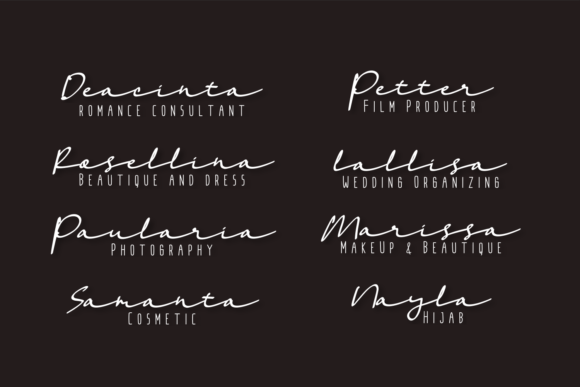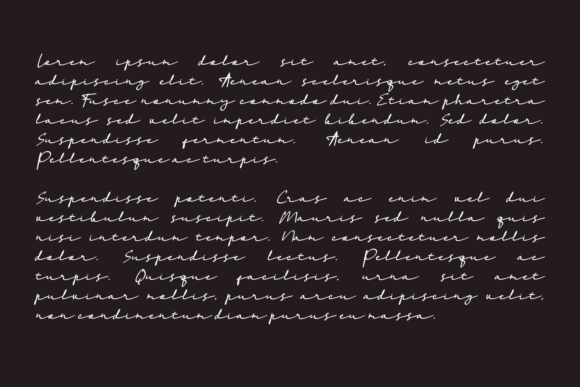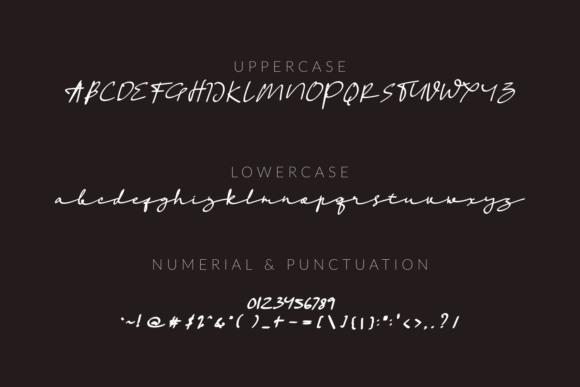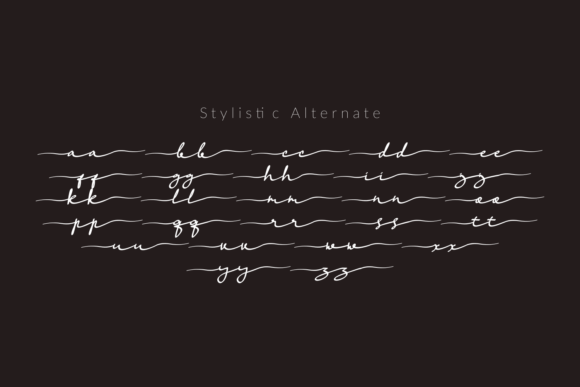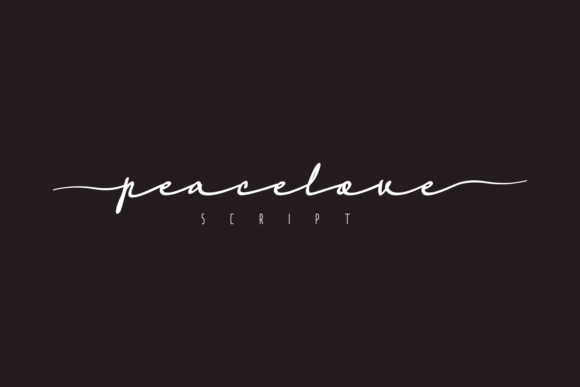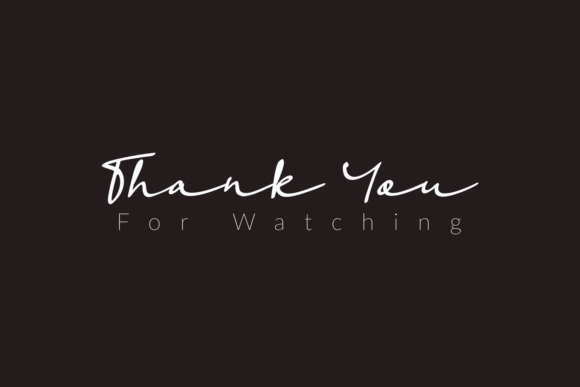
HomeScript FontsPeacelove Font Script Fonts Peacelove Font FacebookXPinterestWhatsApp Peacelove Font Poster 2 Peacelove Font Poster 3 Peacelove Font Poster 4 Peacelove Font Poster 5 Peacelove Font Poster 6 Peacelove Font Poster 7 About Peacelove Font Peacelove is an incredibly thin and charming script with a cool vibe. Get inspired by its unique charm! DOWNLOAD NOW People also explored Bellissimo Mortised Caps Font Aktuci Fantasi Font Rashkey Font Baby Darling Font Chandrallin Font Babylon Font Fontinism Font Pebble Brown Styled T-shirt Mockup Photo 326 0 TagsPeacelove Font Previous articleLamender FontNext articleLefthand Kids Font LEAVE A REPLY Cancel reply Comment: Please enter your comment! Name:* Please enter your name here Email:* You have entered an incorrect email address! Please enter your email address here Website: Save my name, email, and website in this browser for the next time I comment. Personal Use Free Lovetle Personal Use Free Read more about this font Leorio Personal Use Free Read more about this font The Most Beautiful Gift Personal Use Free Read more about this font Penelope Brush Script Font Personal Use Free Read more about this font BLOG How to Cut Any Font on Cricut: Convert a Font to SVG (Free) Turn any font into a clean SVG so it cuts crisp on Cricut - a quick 3-step workflow using a free font-to-SVG tool. To increase your work productivity, choose the most readable fonts. Elegant Wedding Invitation Fonts – Handwritten & Script Fonts Top 7 Google Fonts Alternatives for Faster and Privacy-Friendly Web Design (2025)